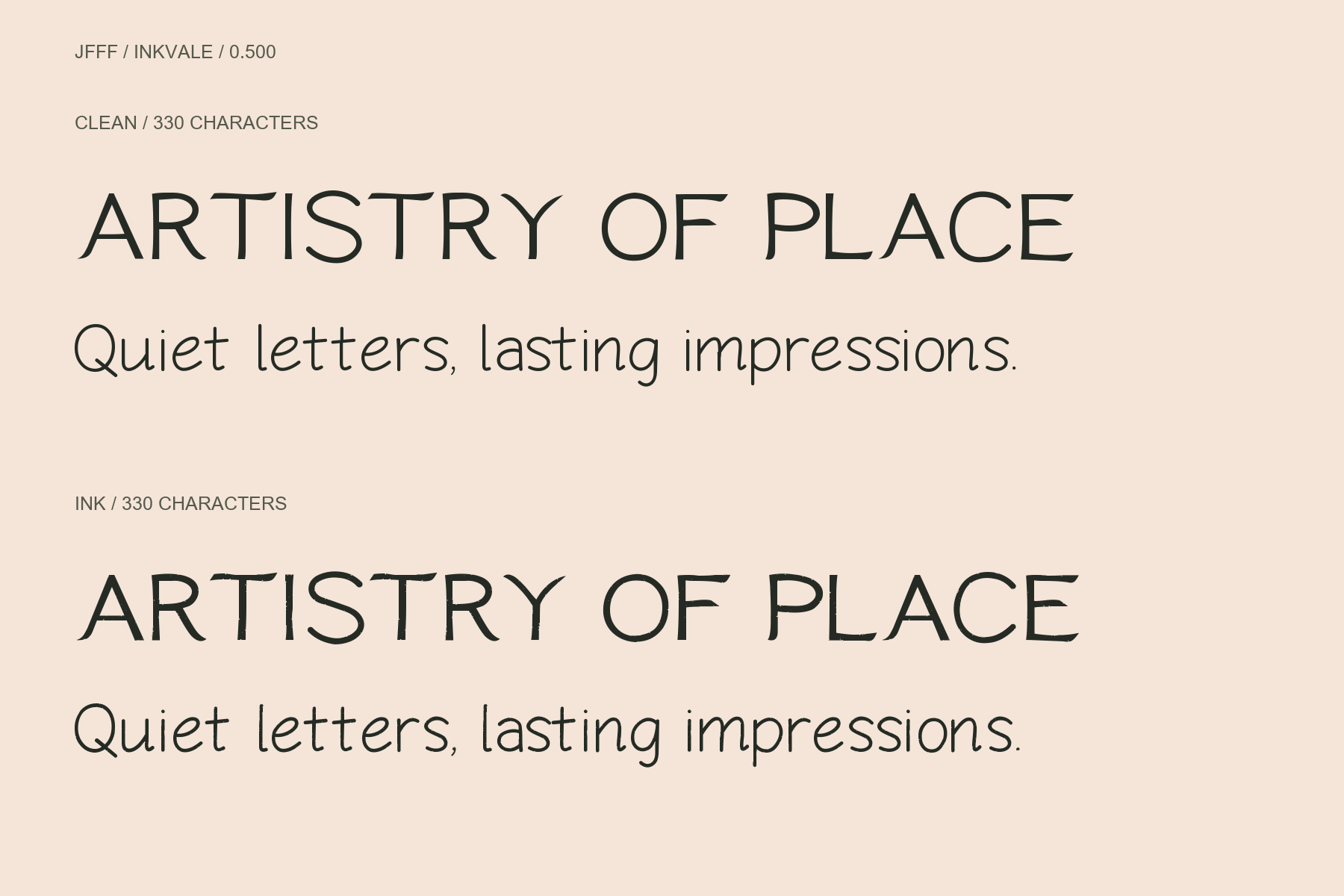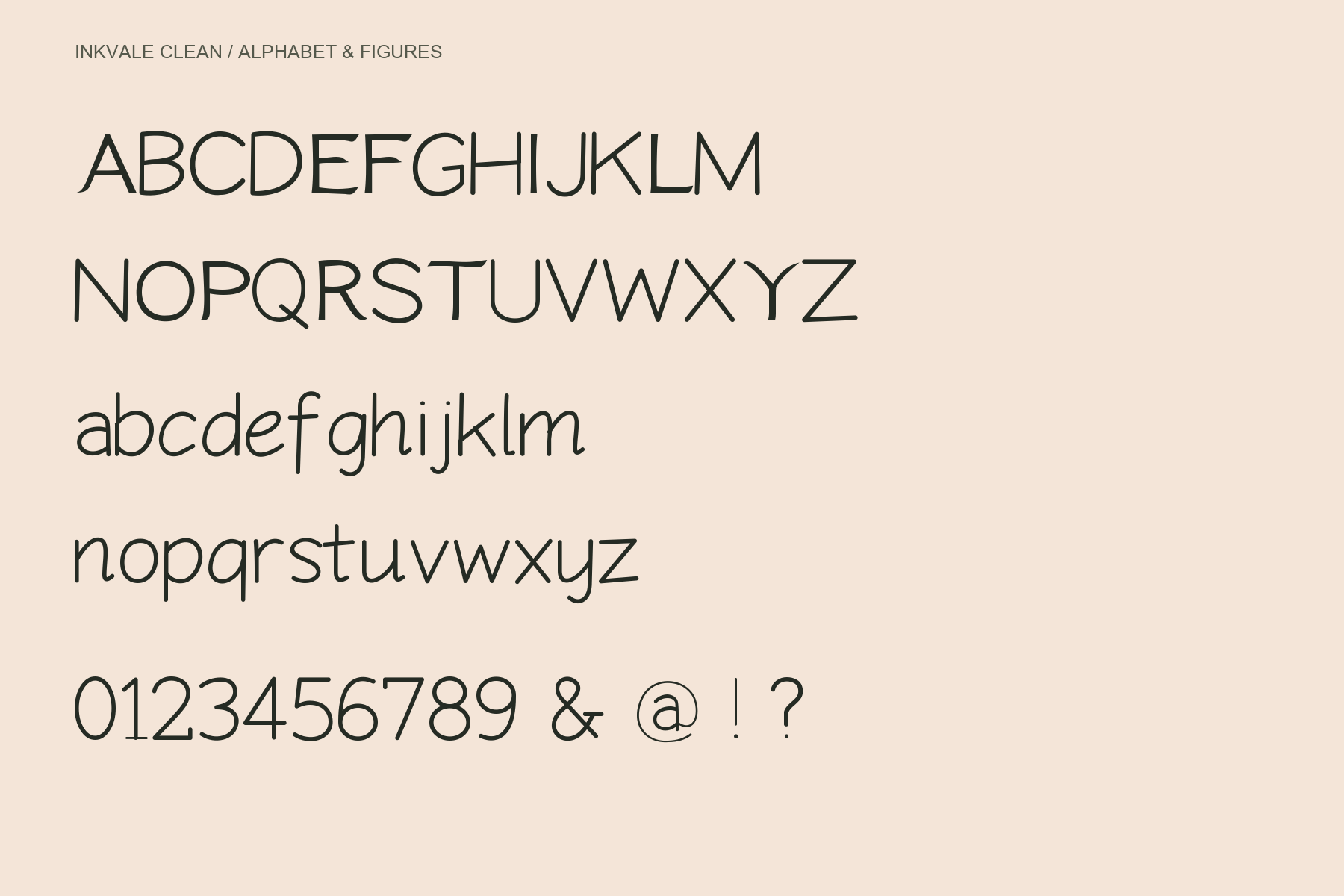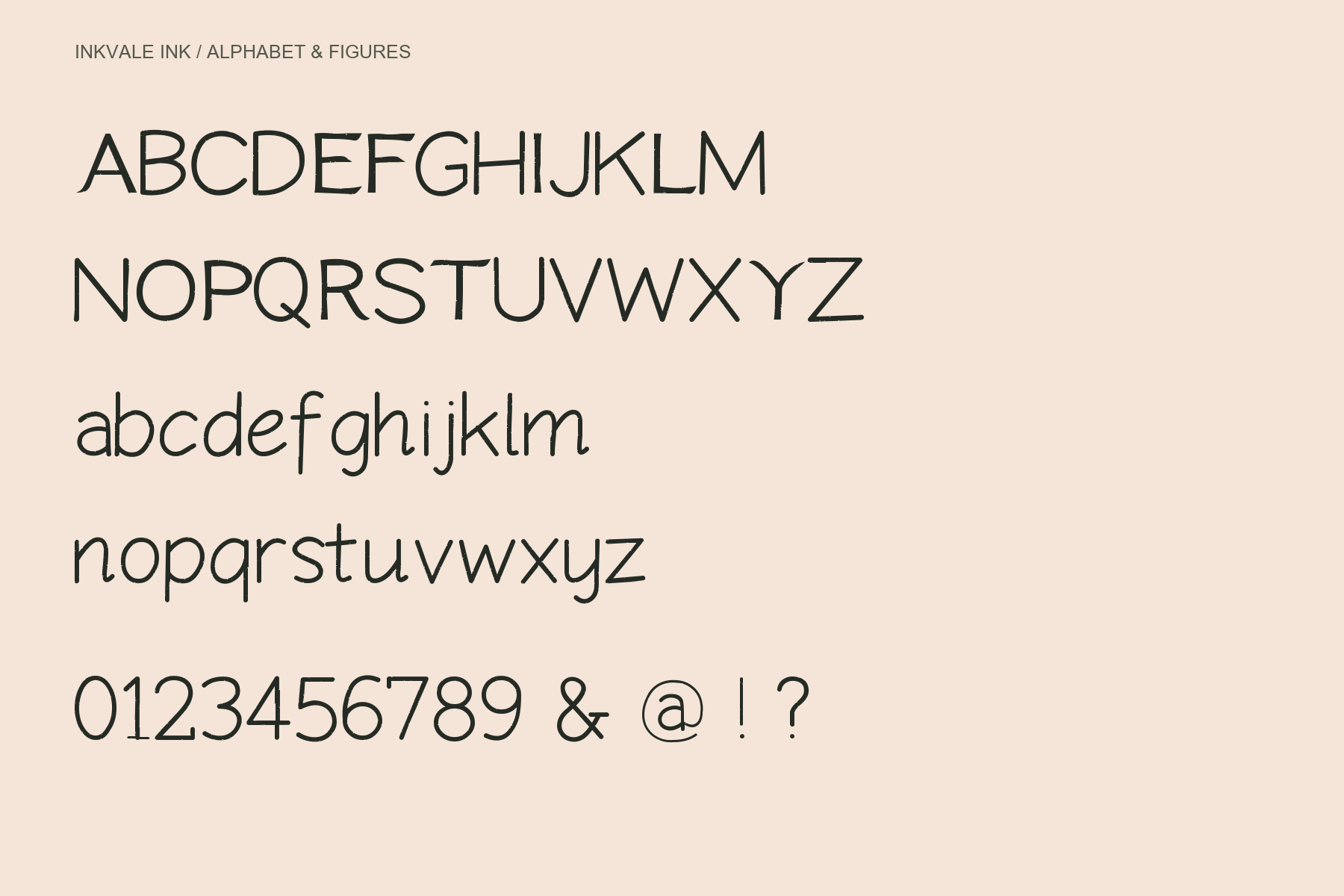
Inkvale Clean and Ink comparison
Inkvale is a Latin display face with a gentle wobble and restrained stroke endings. The family pairs a smooth Clean style with Ink, which recreates the bleed and wear of an old typewriter ribbon. 330 characters per style including spaces: uppercase, lowercase, figures, symbols and Latin Extended. TTF and WOFF2, free under SIL OFL 1.1. Best for large titles and short phrases; the Ink texture fades at small sizes. No Hangul. The live preview uses Clean; the download includes both styles.